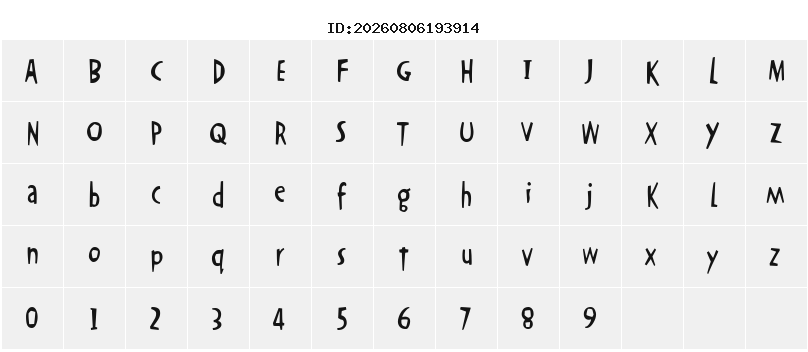
OkrienHmk.ttf is a modern, elegant sans-serif font designed for ultimate readability and visual harmony. Perfect for branding, headlines, web design, and print materials.